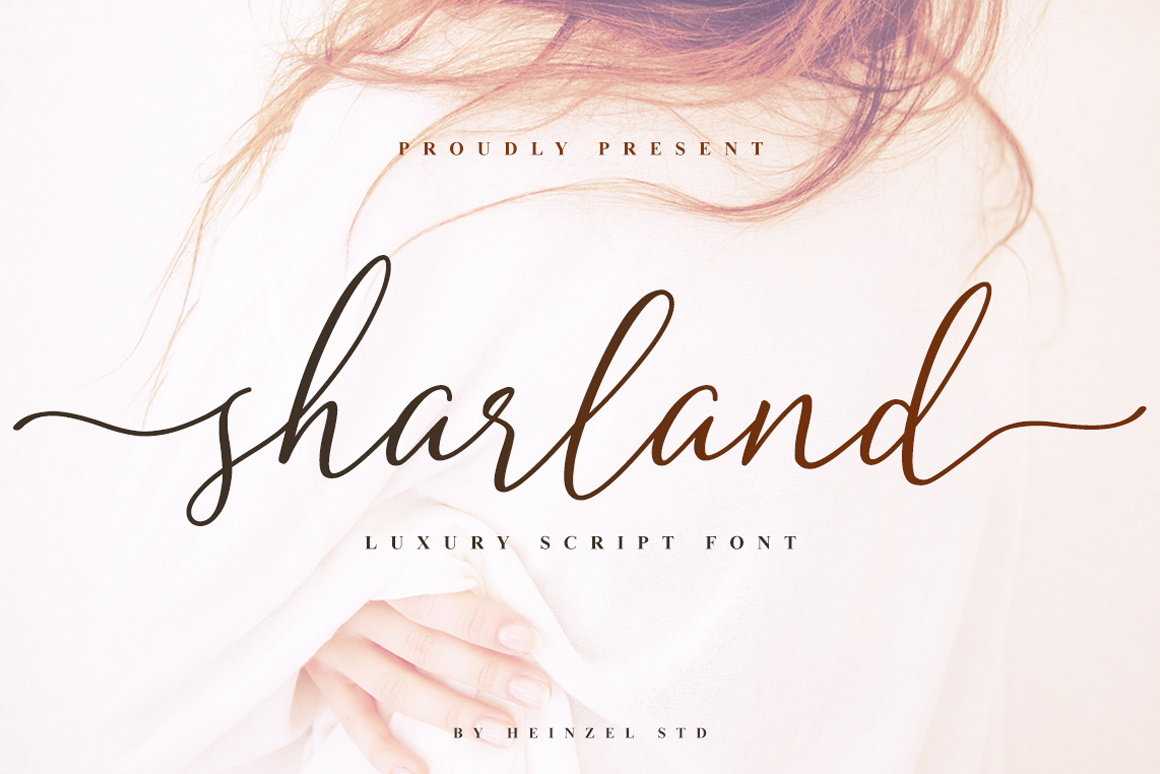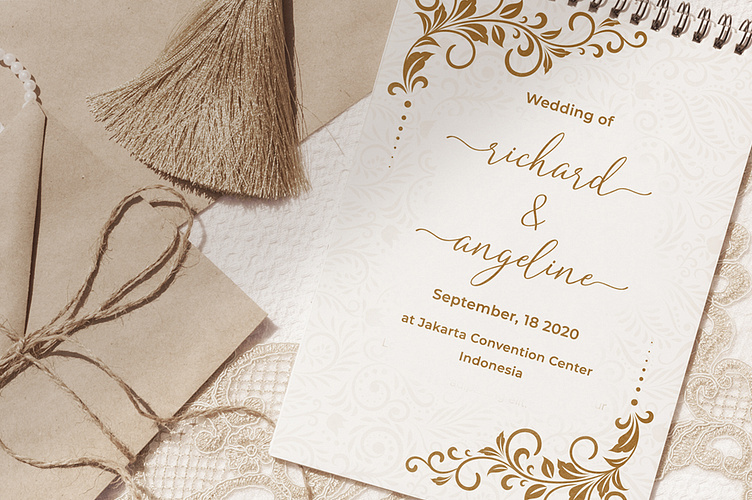
Sharland Calligraphy Script Font
Sharland is a beautiful and luxury script font. It has a classy, elegant and modern look that can be used for logos, branding, invitations, stationery, wedding designs, social media posts, and much more! This font is PUA encoded which means you can access all of the amazing glyphs and ligatures with ease! Fall in love with this font and bring your projects to the highest levels!